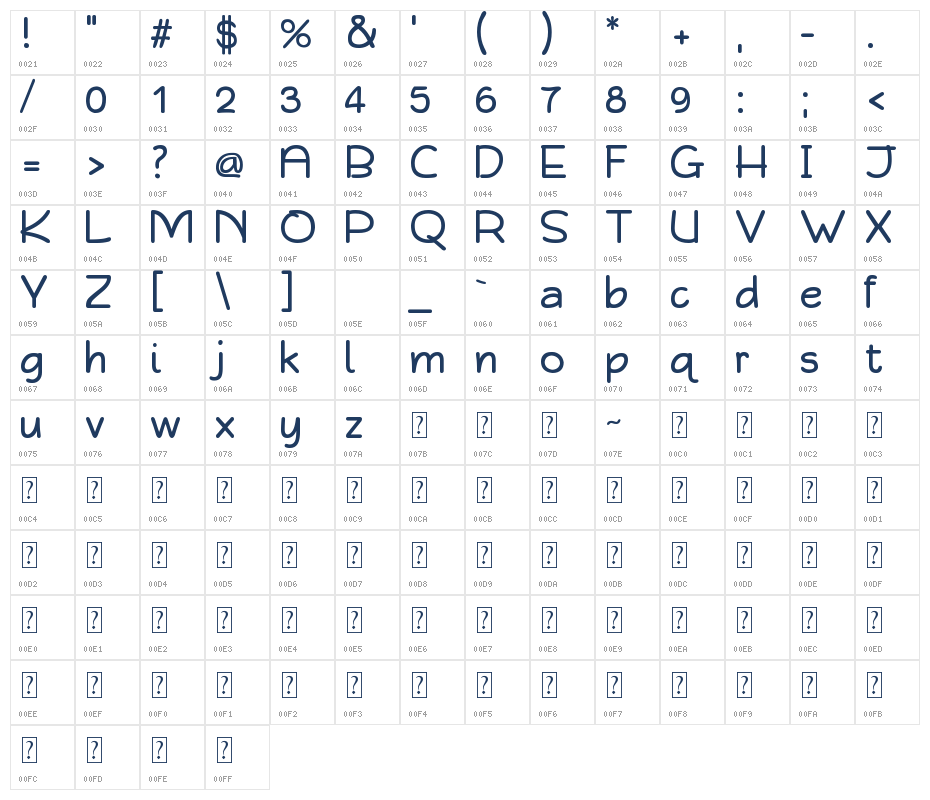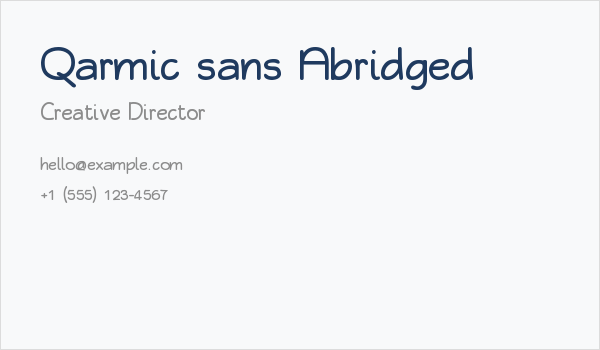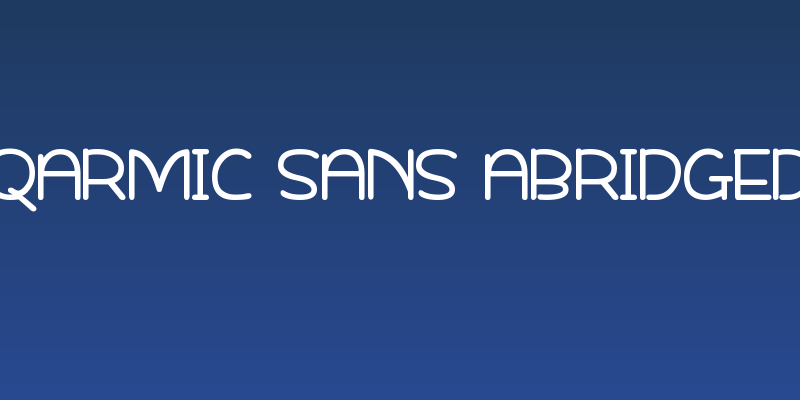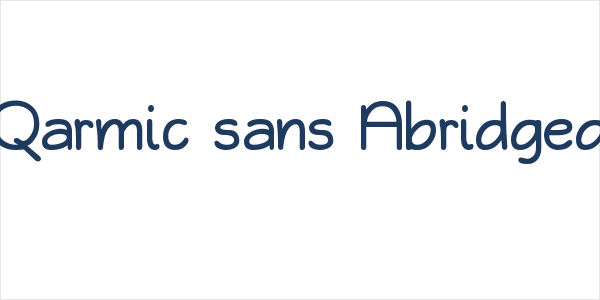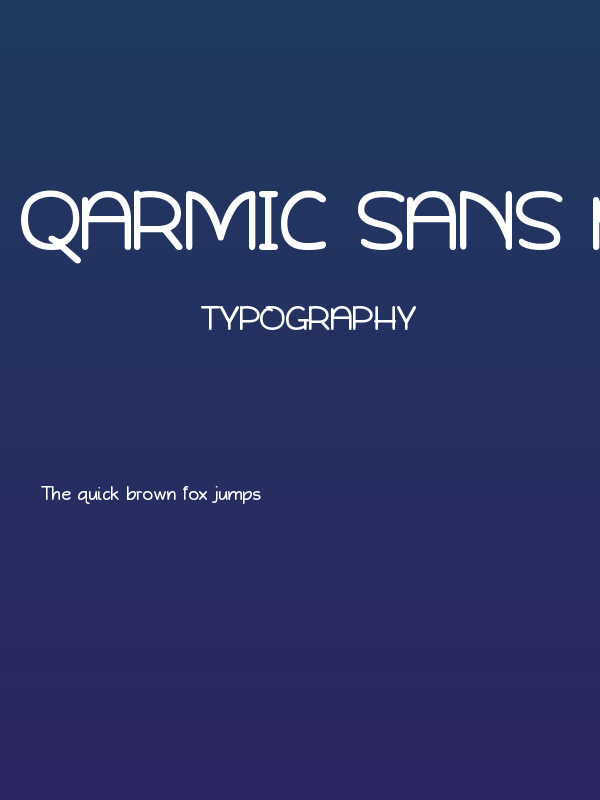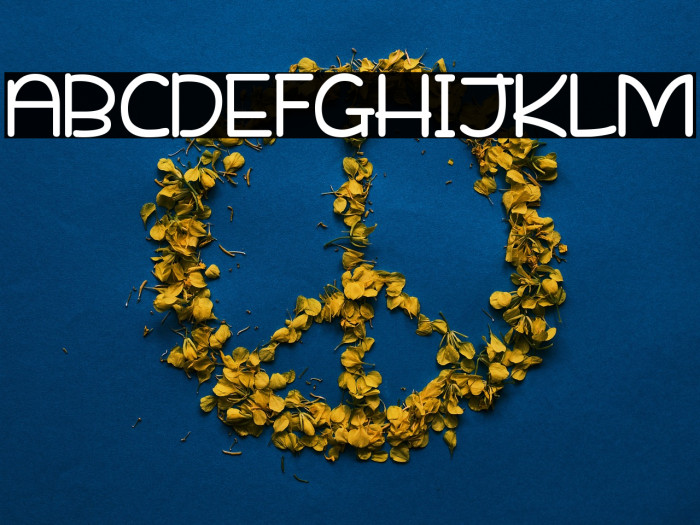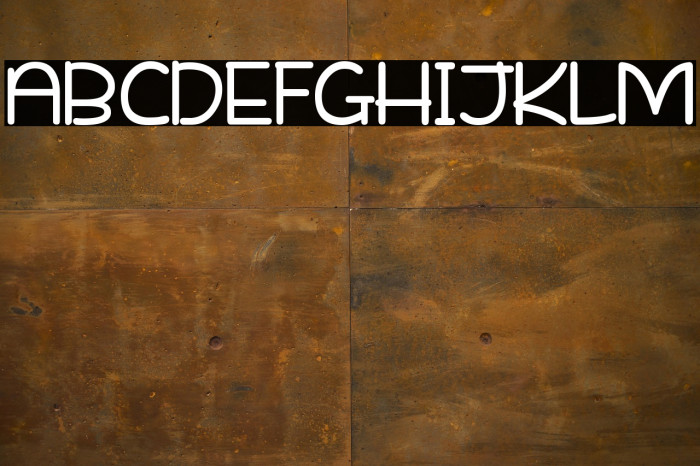
Qarmic sans Abridged Font
Qarmic sans Abridged Description
A playful, rounded sans-serif font with a casual and friendly appearance, featuring smooth curves and consistent stroke width.
| Overall Style | Casual, Friendly, Modern |
| Use Case | Headlines, Body text, Logos, Children's materials |